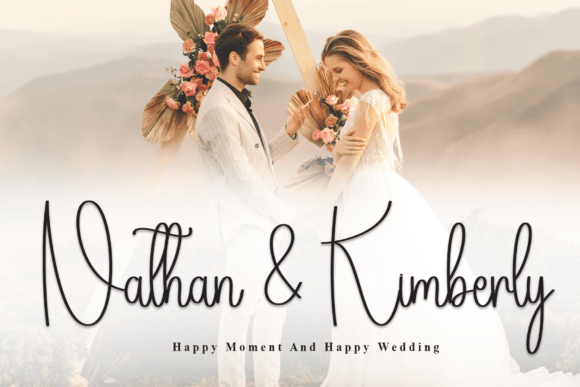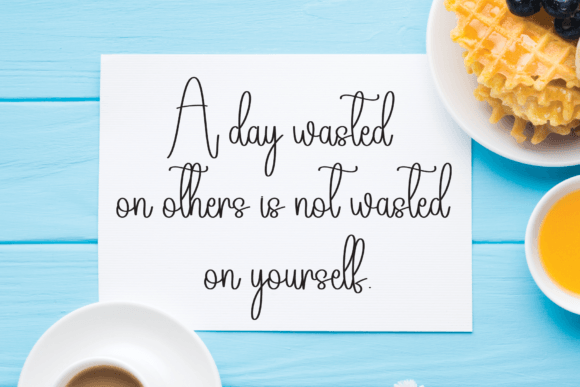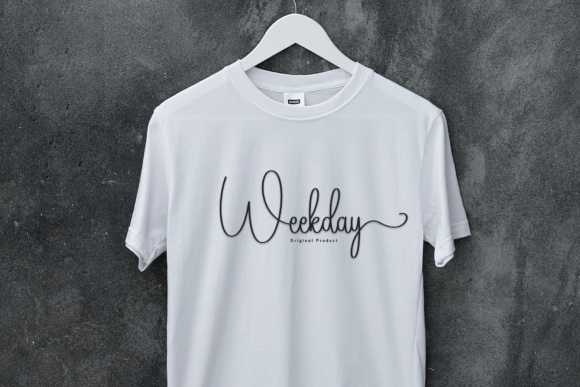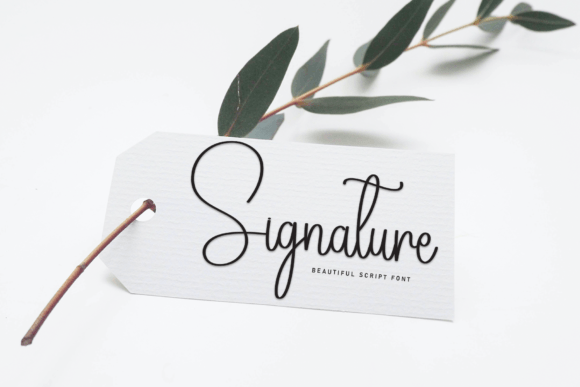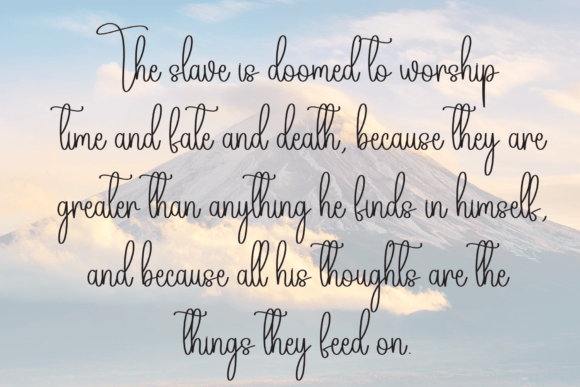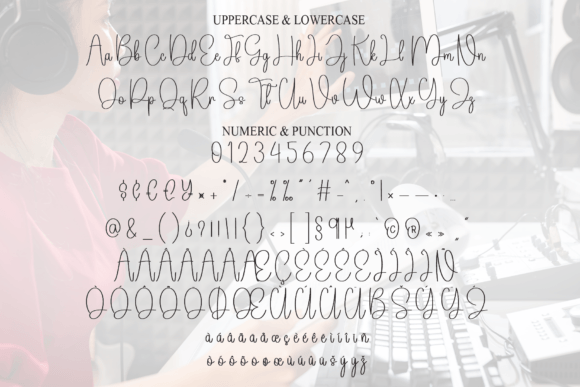
The Perfect Pen Stroke for Your Creative Project
Have you ever sat down with a blank page, a pen in hand, and let your thoughts flow onto the paper in a beautiful, flowing script? That’s the kind of creative freedom that the Audiography Font embodies. This charming handwritten font captures the effortless elegance of casual script, making it perfect for personal blogs, heartfelt invitations, and boutique branding.
For designers, the Audiography Font is a valuable tool in their creative arsenal. Its fluid, cohesive strokes and friendly appearance add a personal, approachable touch to any project. Whether you’re designing a wedding invitation or a branding campaign, the Audiography Font is sure to bring a sense of warmth and personality to your work.
- Unique Characteristics: Audiography Font features a unique blend of modern and vintage elements, with intricate details and subtle texture, making it ideal for creative and design-driven projects.
Audiography Font Review
I’ve had the chance to work with the Audiography font, and I have to say, it’s been a wild ride. Here are my thoughts:
- Unique and creative design: Audiography is a one-of-a-kind font that’s sure to turn heads. It’s perfect for designers who want to add some personality to their projects.
- High-quality textures: The font features intricate textures that add depth and visual interest. It’s a great choice for anyone who wants to create a unique and eye-catching design.
- Customization options: Audiography offers a range of customization options, from color to texture, making it easy to tailor the font to your specific needs.
- Readability issues: While the font is visually striking, it can be challenging to read, especially for longer blocks of text. This may not be ideal for projects that require a high level of readability.
- Not suitable for body text: Audiography is best used as a display font, as its unique design can be overwhelming for body text. It’s perfect for headlines, titles, or other short blocks of text.
Audiography is a bold and creative font that’s perfect for designers who want to add some personality to their projects. While it has some limitations, it’s a great choice for display text and can add a unique touch to your designs. Just be sure to use it judiciously, as its bold design can be overwhelming for longer blocks of text.
Audiography Font is commonly used in:
- Music-related designs, such as posters or flyers.
- Fashion or art-inspired designs.
- Any design that requires a unique and stylish font.